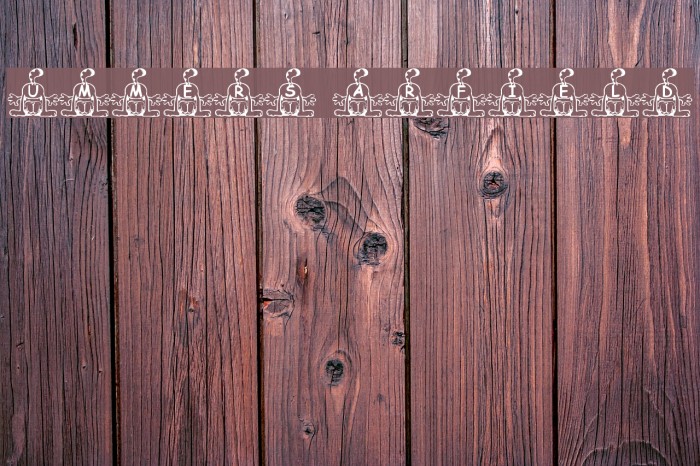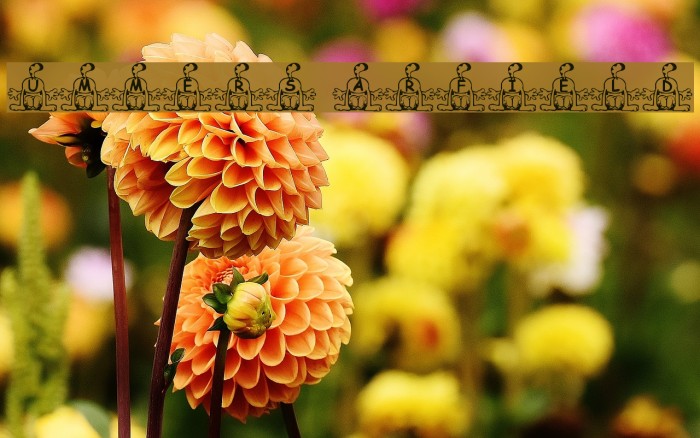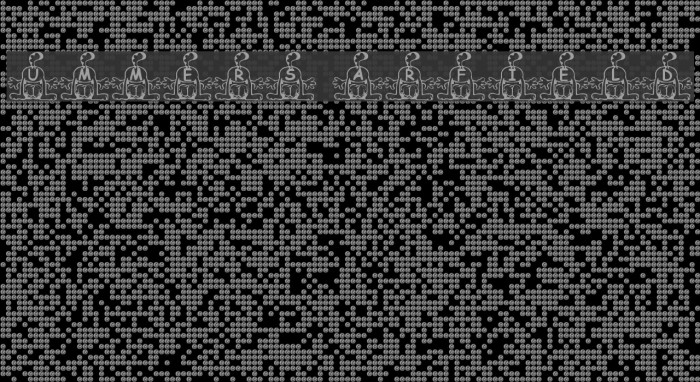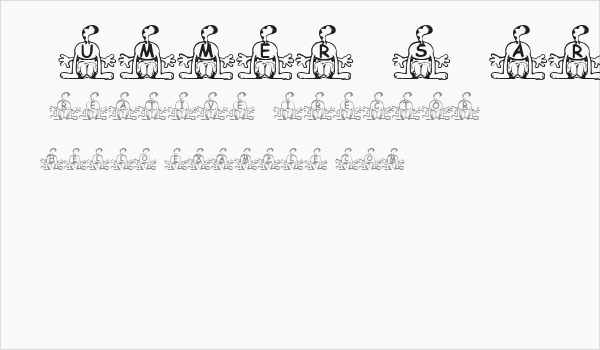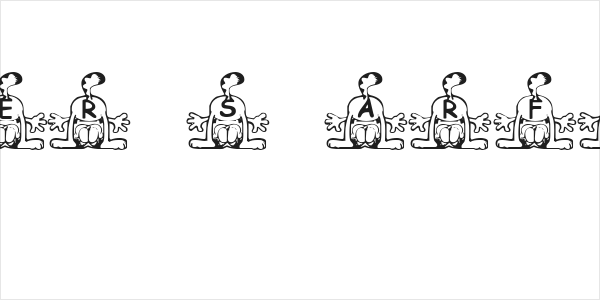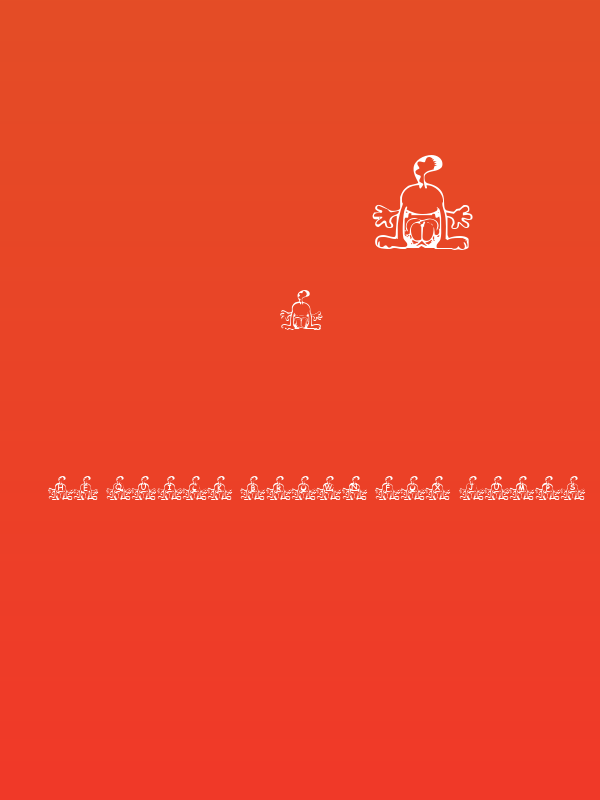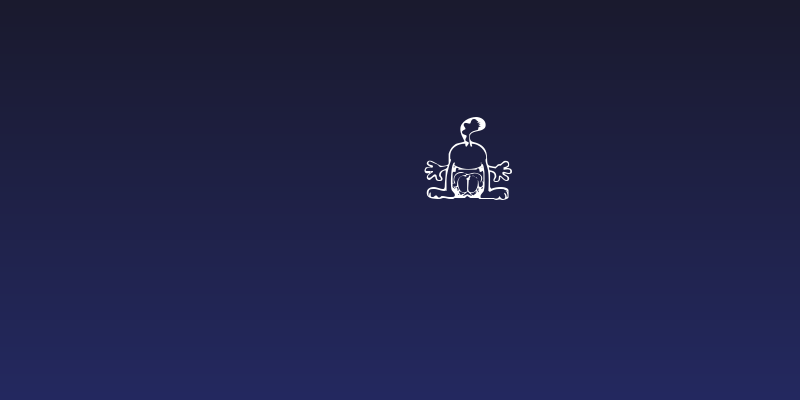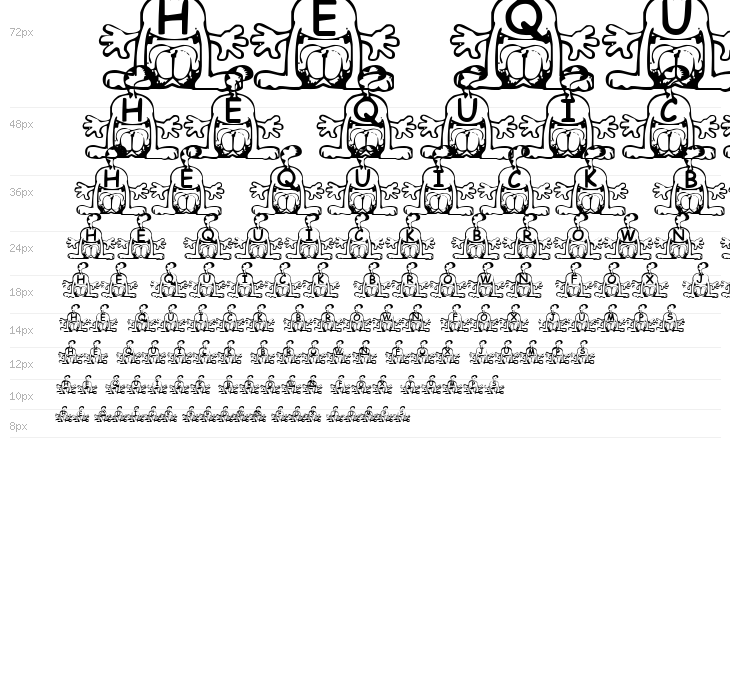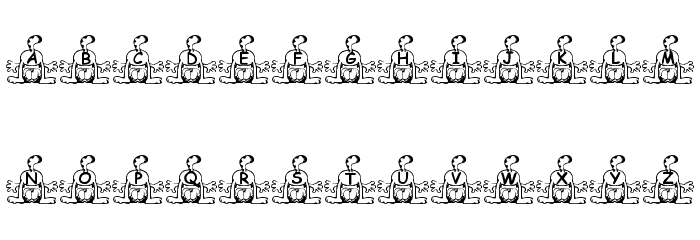
Summer's Garfield Font
Summer's Garfield Description
This font is a playful and whimsical design where each letter is creatively integrated into a cartoon character's body. The character appears to be sitting with its arms outstretched, and the letter is prominently displayed on its chest. The style is highly decorative and unique, making it stand out with its humorous and light-hearted appearance. The lines are bold and consistent, providing a clear and easily recognizable form for each letter. This font is not suitable for body text due to its intricate design but is perfect for adding a fun and engaging element to any project.
| Proposed Projects | Ideal for children's books, comic strips, playful posters, and novelty items. |